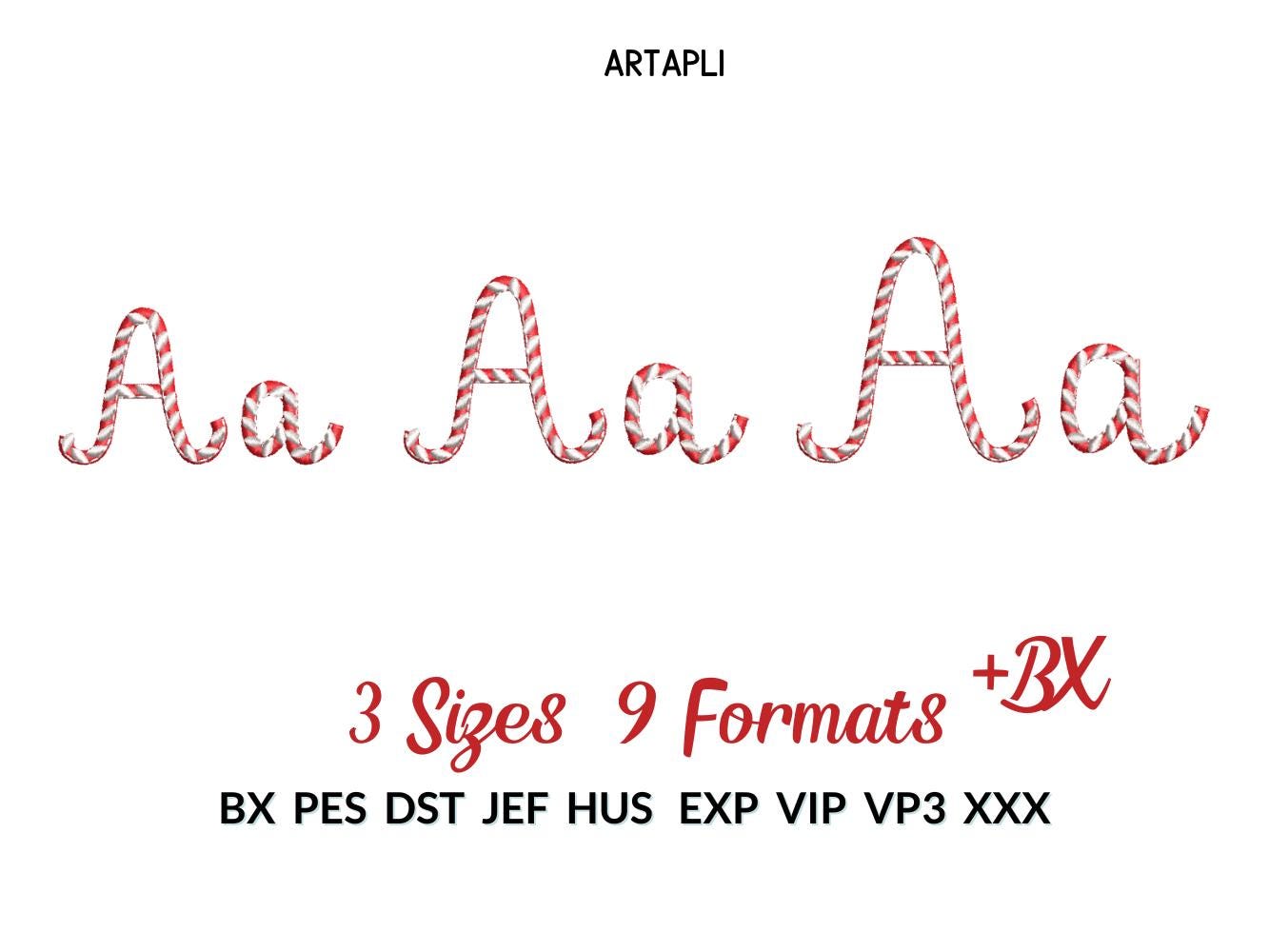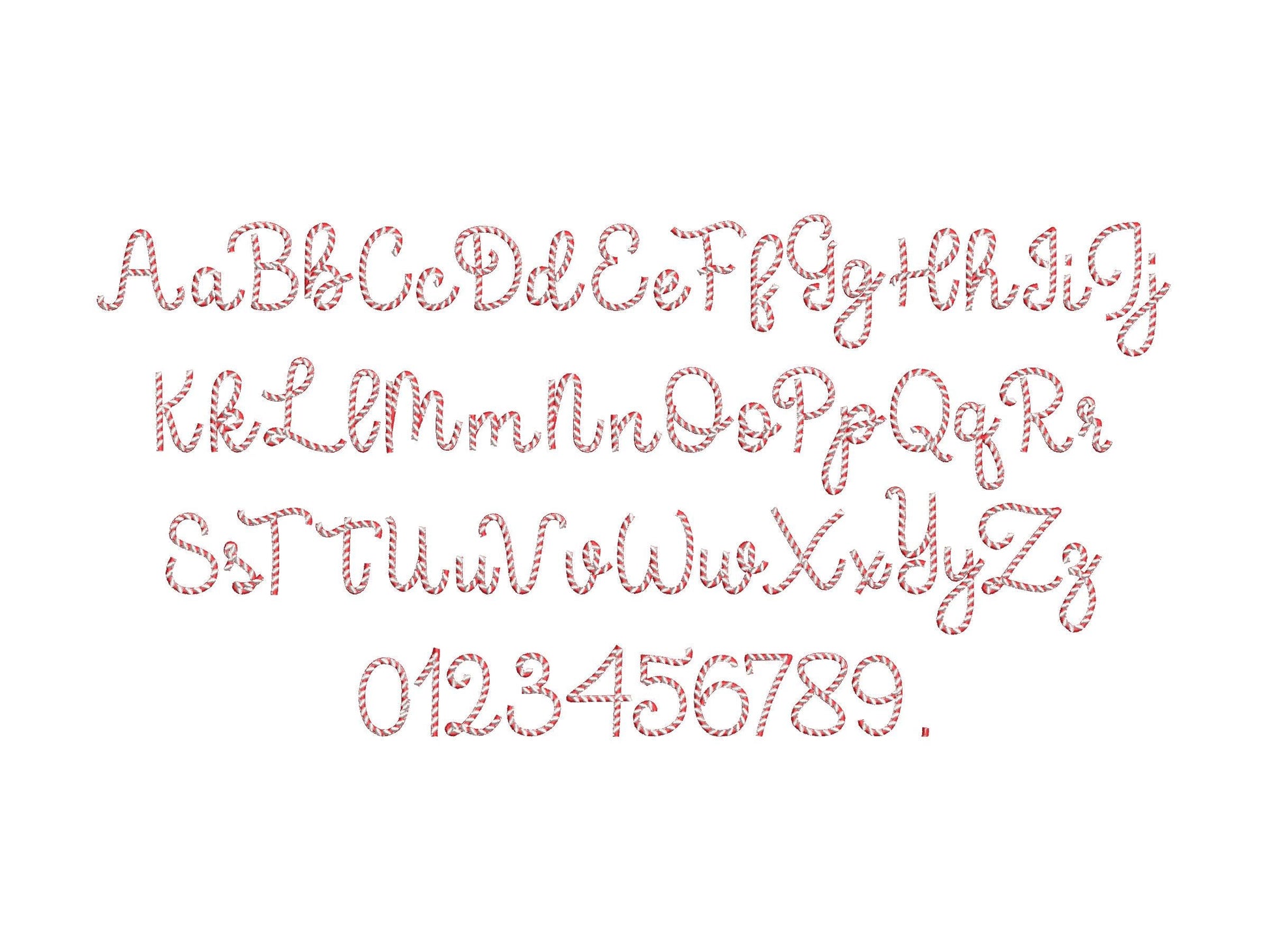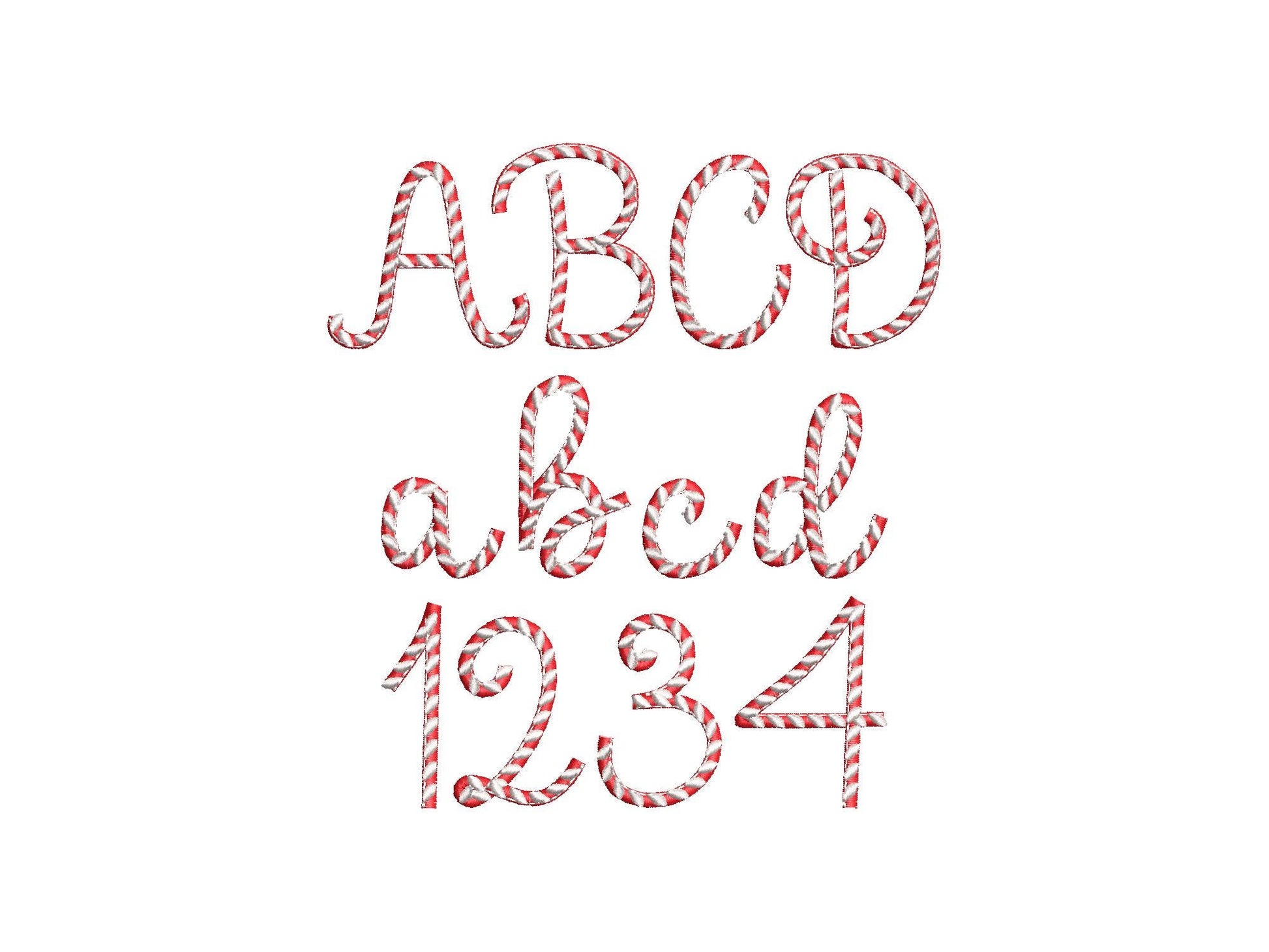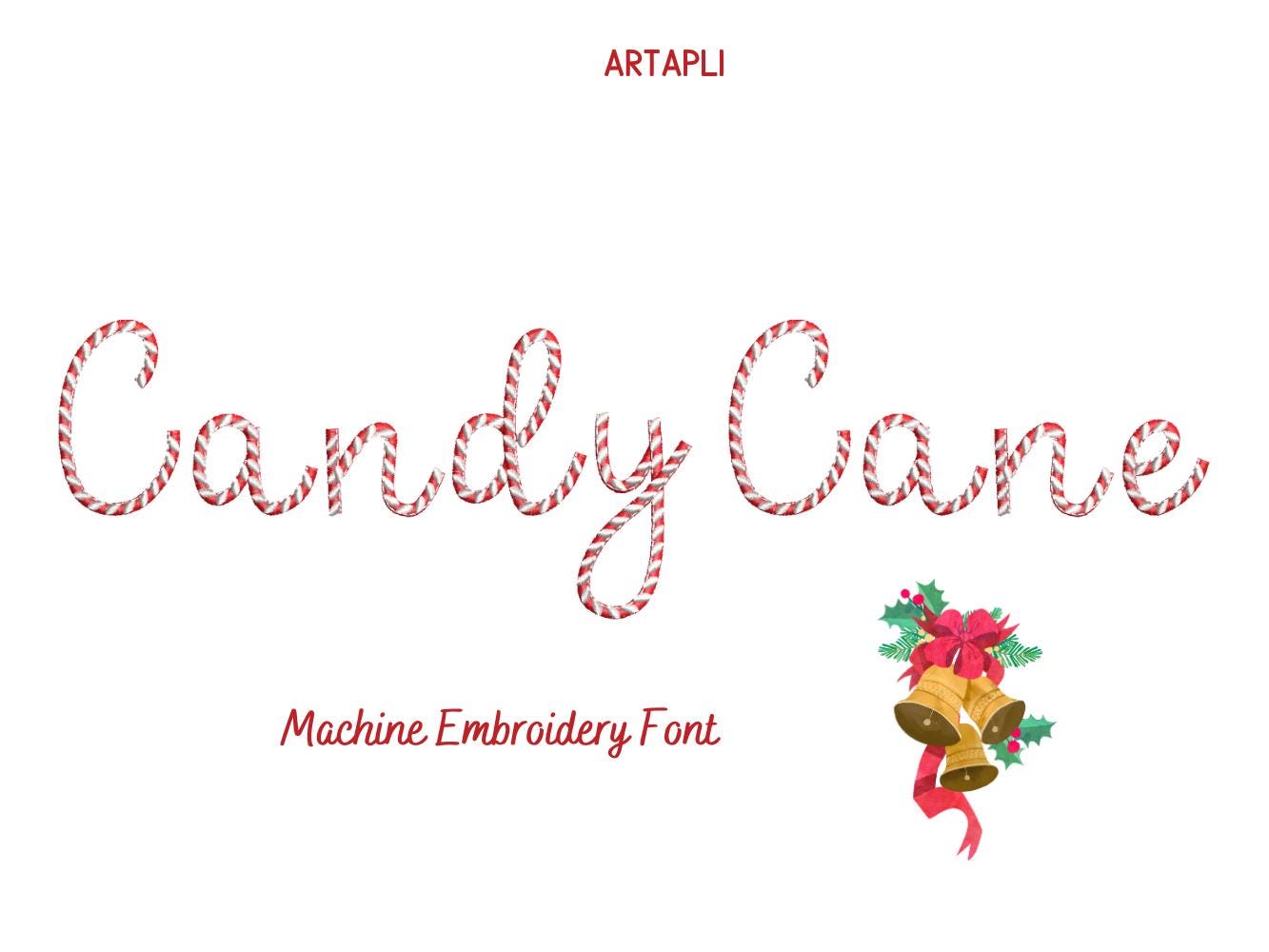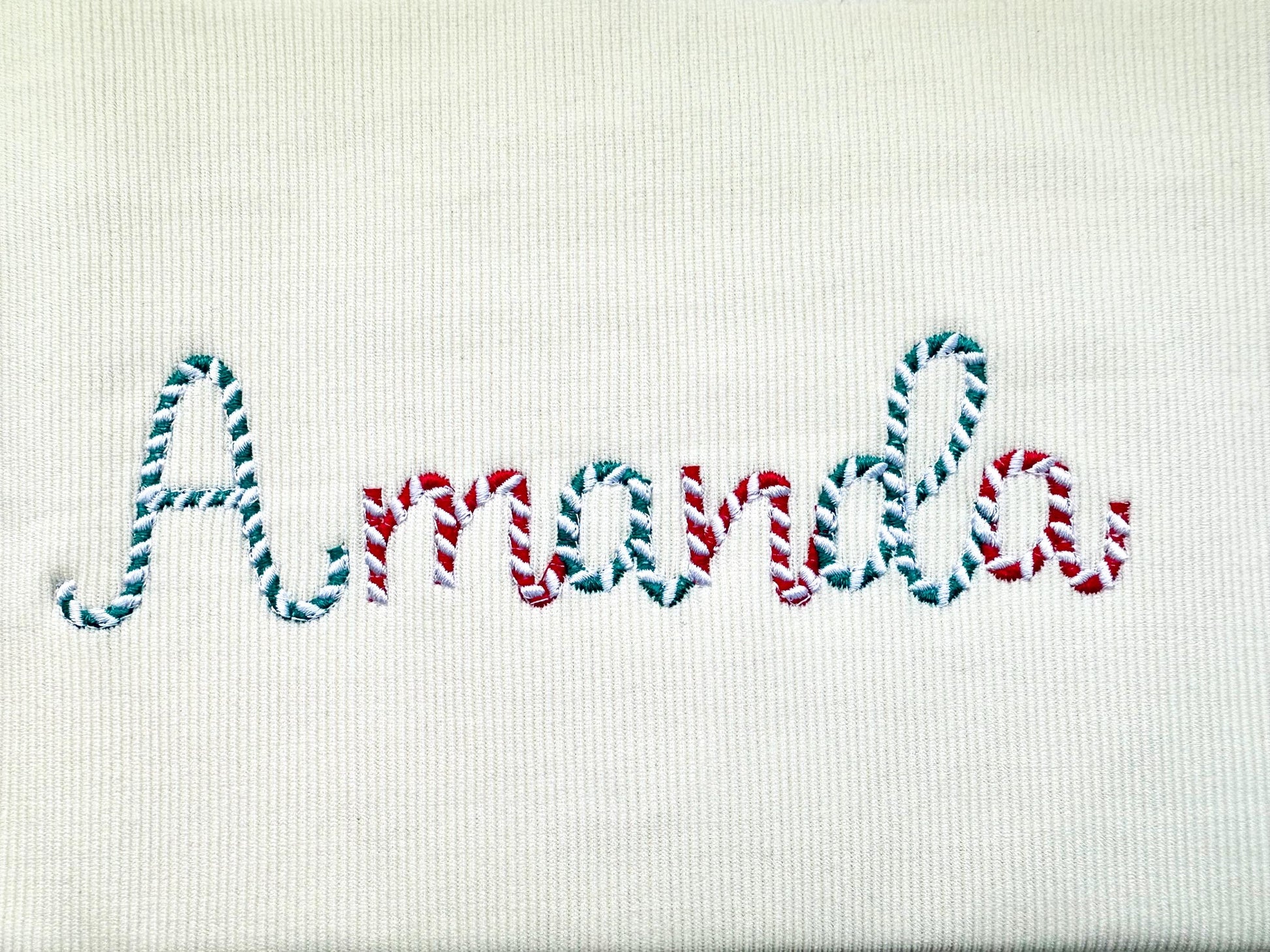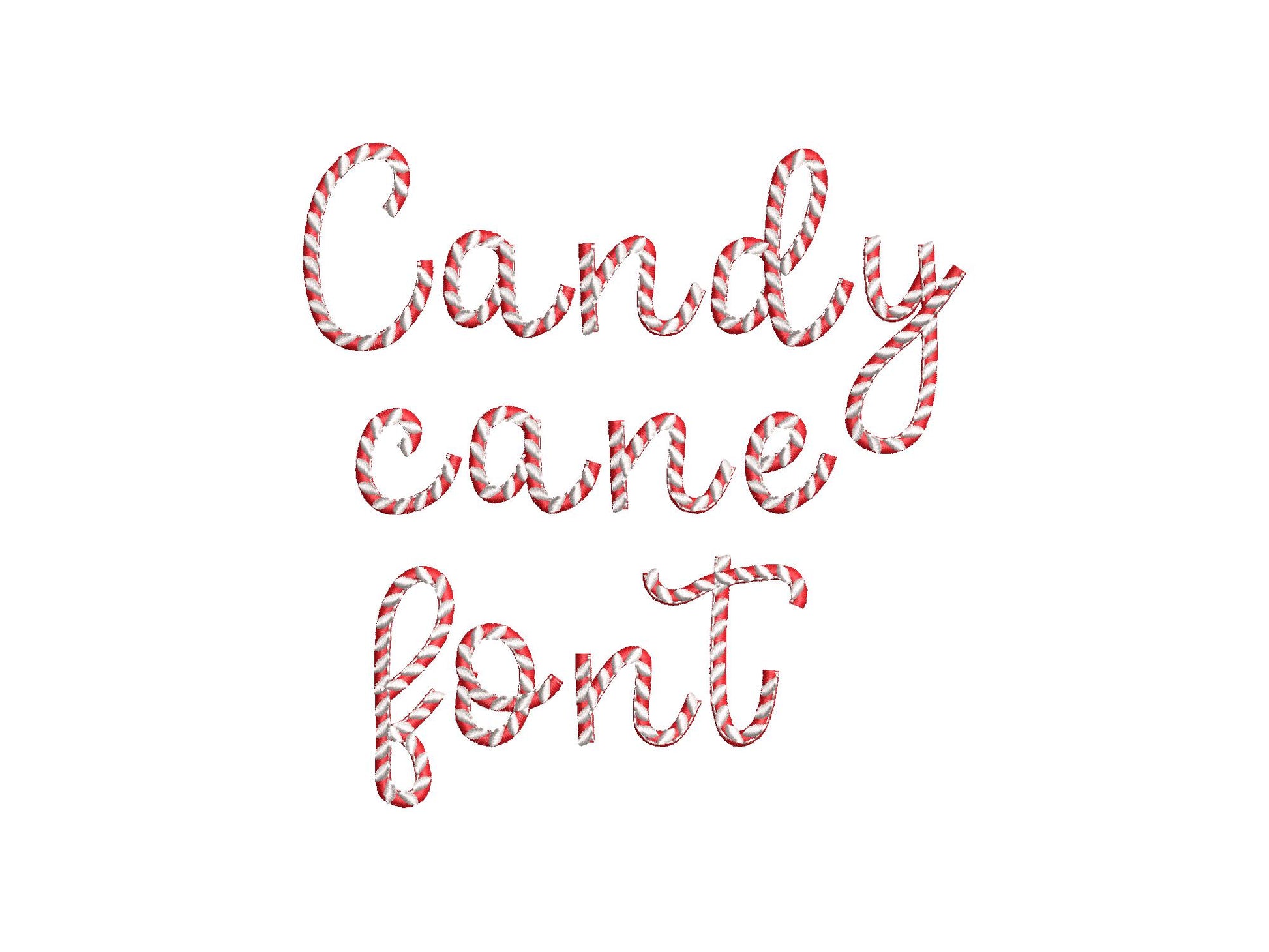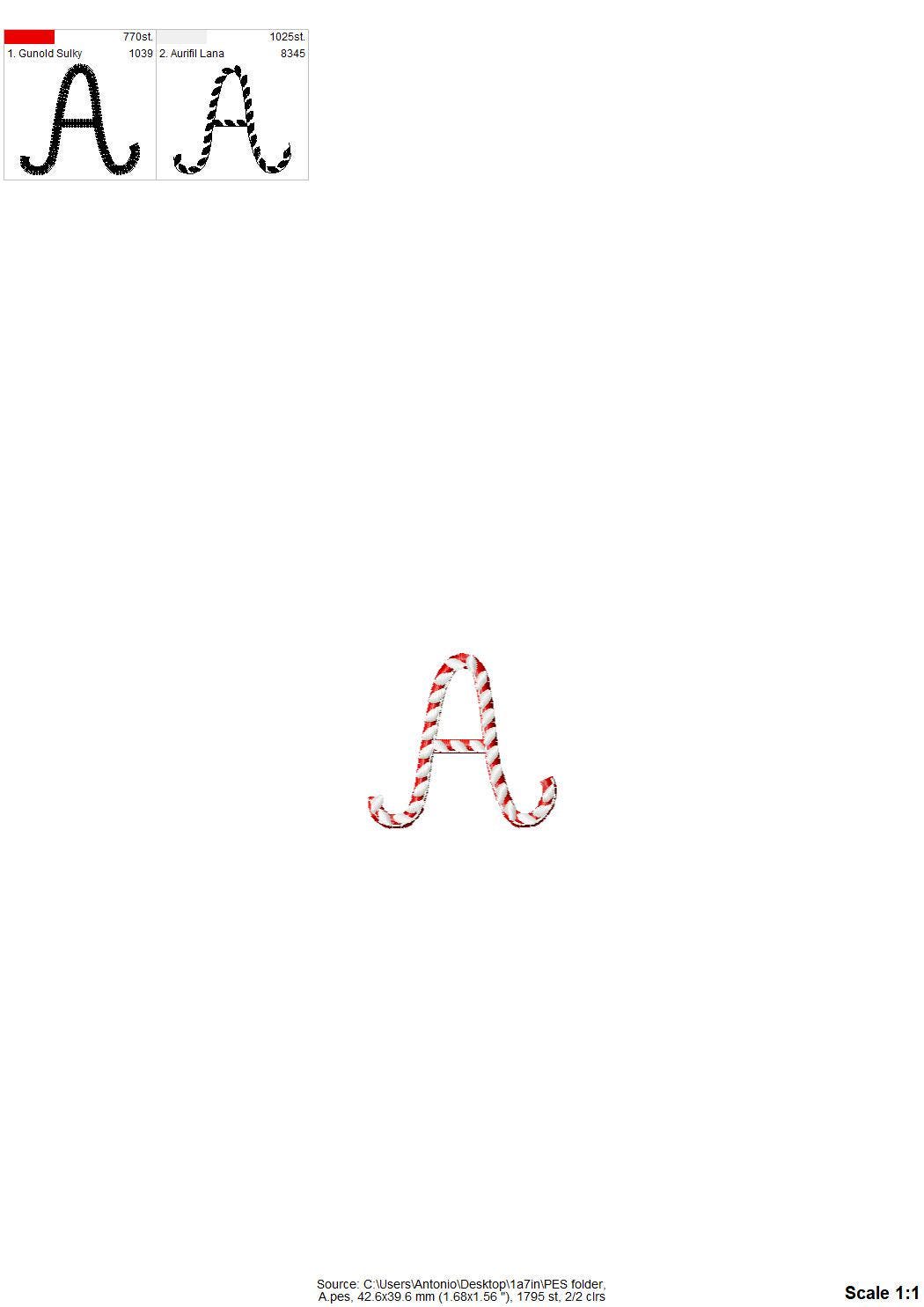
Dense Candy Cane Stitch Font
Or click to open the linkA dense candy cane stitch font in two colors for Christmas stockings, ornaments, holiday shirts and small names.
Uppercase and lowercase letters, numbers 0 to 9 and a period, in three mini sizes: 1.4, 1.7 and 2 inches. Tight two-color candy cane stripes fill every letter.
- Dense two-color candy cane font
- Uppercase and lowercase letters, numbers 0-9, period
- 3 sizes: 1.4, 1.7 and 2 in